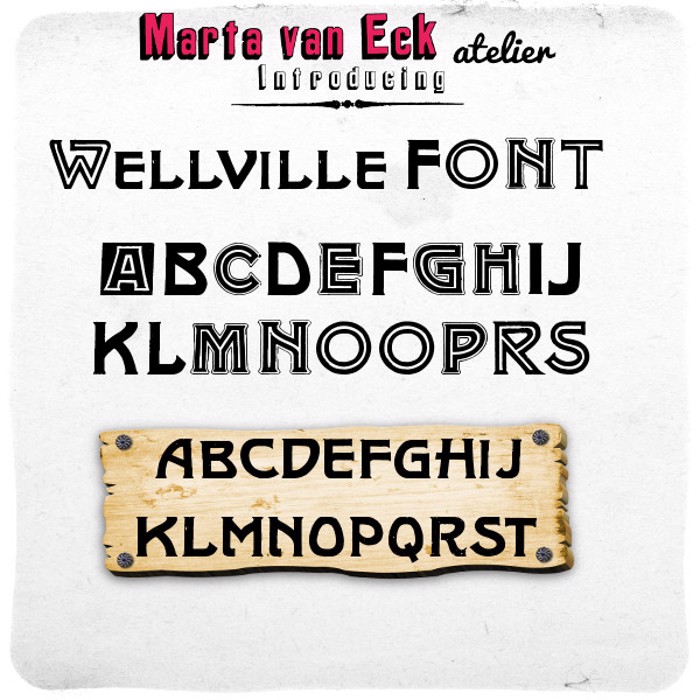
Wellville Font
This is funny and bizarre font inspired by the movie Welcome to Wellville. Very different letters. Every letter looks different. Kind of Victorian look. This is for personal use only. Commercial use required donation: 6 dollars on store@polish-your-art.com. Visit also my store to find some more fonts.